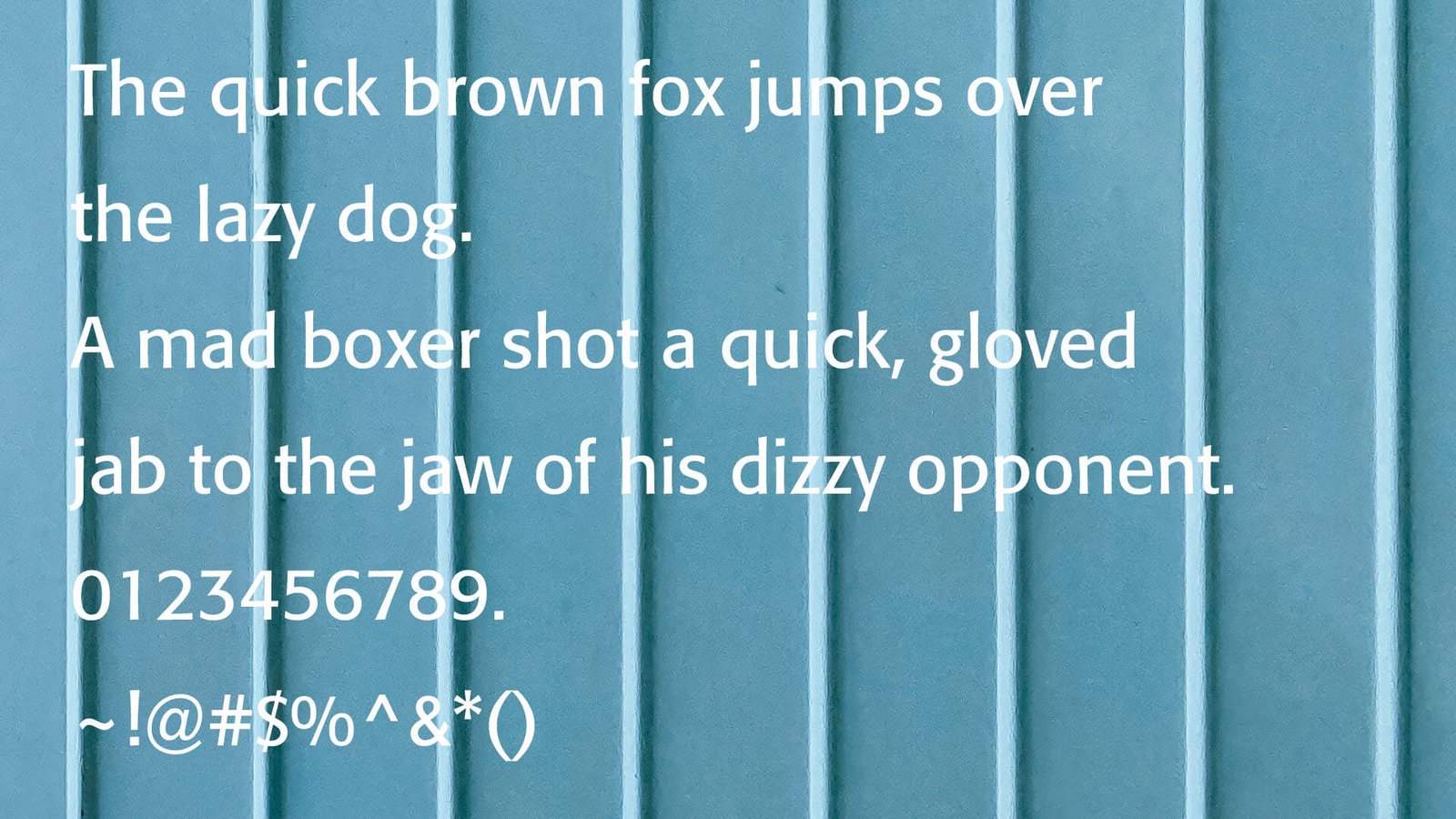
Today we are introducing you to one of the famous logo fonts called the Pandora font. It was specifically designed for the Pandora brand. This font is used in the logo of this brand.
Pandora Font Family
The font is designed by Hermann Zapf and published by the D.Stempel typeface foundry located in Germany. This font belongs to the sans serif typeface category. It has a very attractive design which is best suitable for the logos and titles.